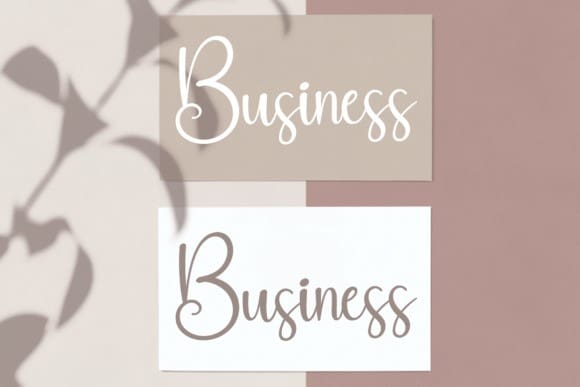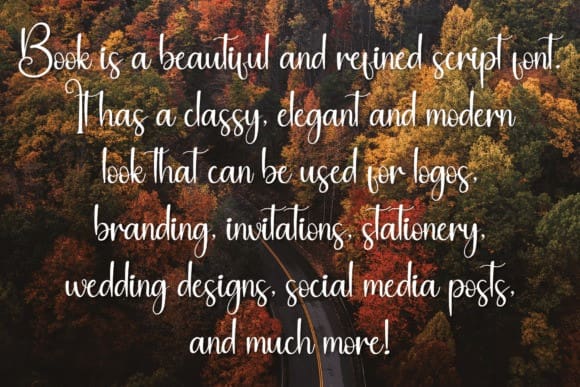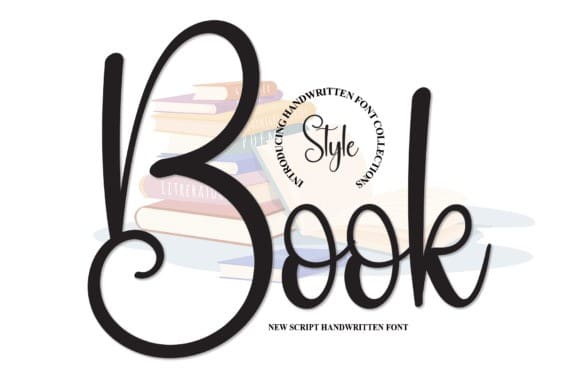
Book Script Font
Book Script Font is an enchanting handwritten font. This versatile script font has a wide spectrum of applications ranging from greeting cards to headlines and is guaranteed to add a romantic feel to your next project.